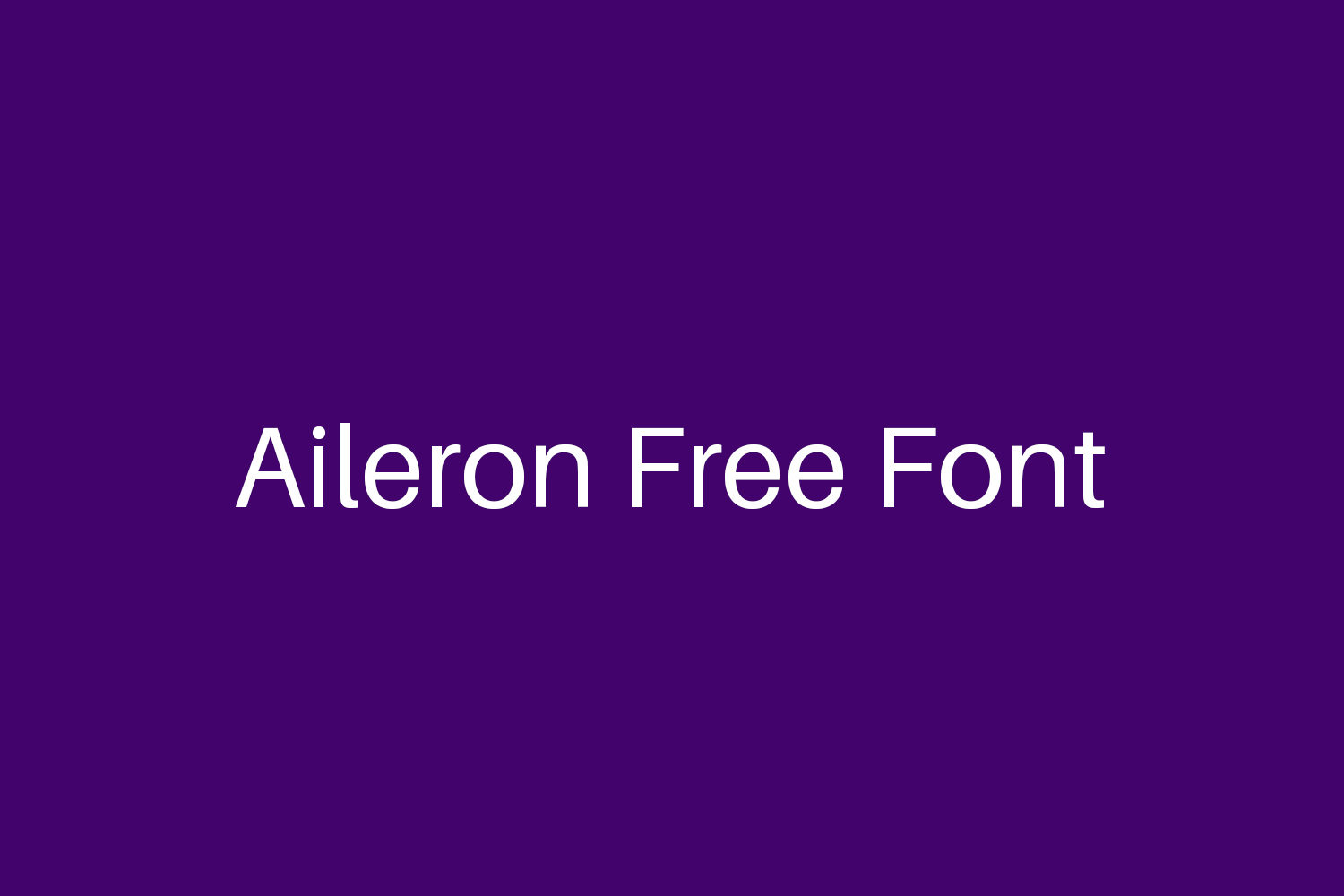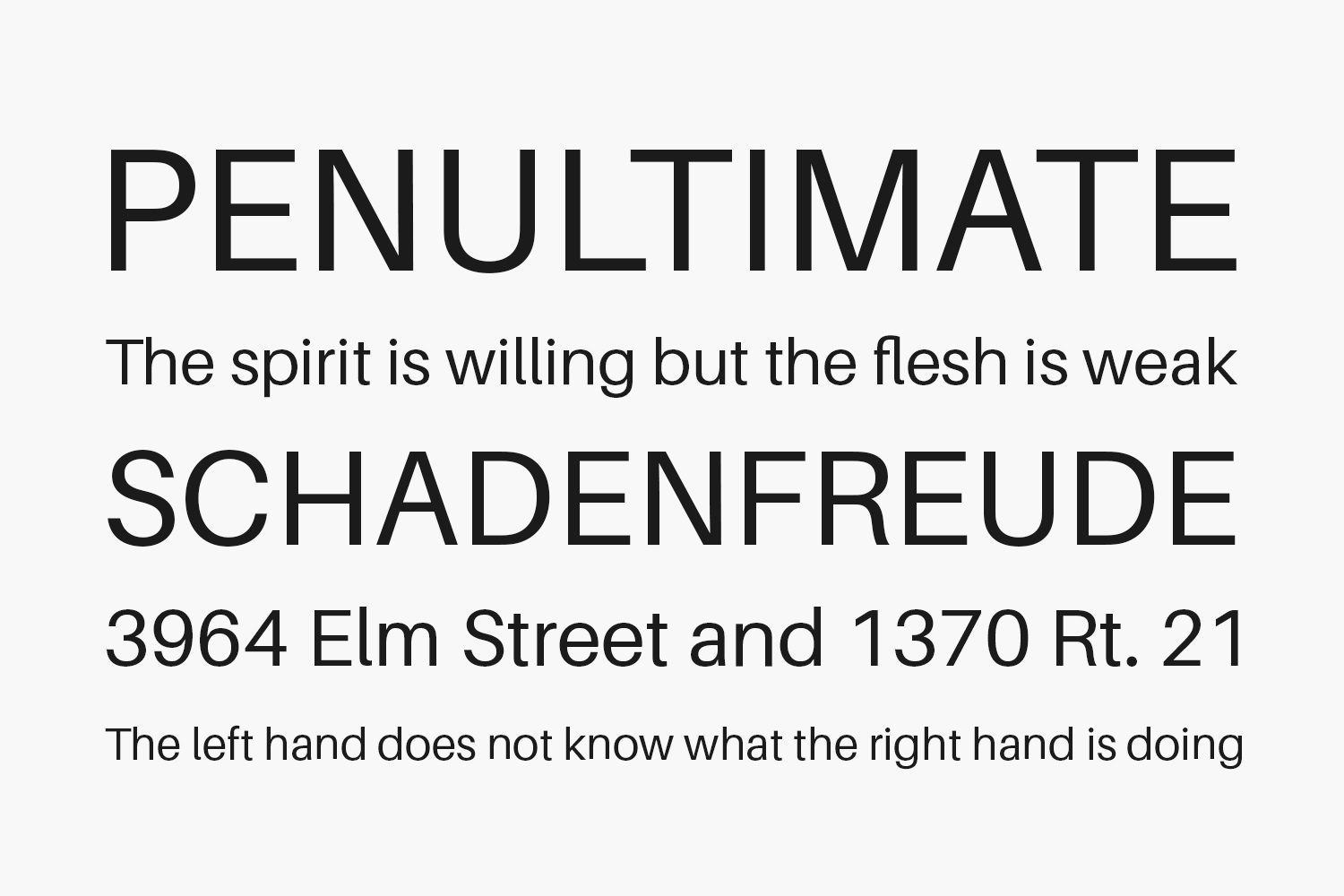
Aileron Free Font is a sans serif font which adds my own interpretation with reference to a typeface classified as Neo-Grotesque including Helvetica.
In order to make it easy to distinguish it from the capital letter “I”, we made the letter of the lower case letter “l” curved at the end portion as a slight adjustment for the text.
In addition, the dot part of, such as “i” and “j” or period in a circle, the curved portion clothoid curve By performing the process was conscious, was to get an overall soft impression. It is close to Helvetica in terms of design, but rather conceptually it is closer to Univers.
Also, italic type is prepared for the first time as a Dot Colon font. Although the basic is a mechanical inclination, vision correction was applied so as not to feel uncomfortable.
Utilizing multiple masters, weights are prepared in eight levels from UltraLight to Black. I think that you can use it in a wide scene.